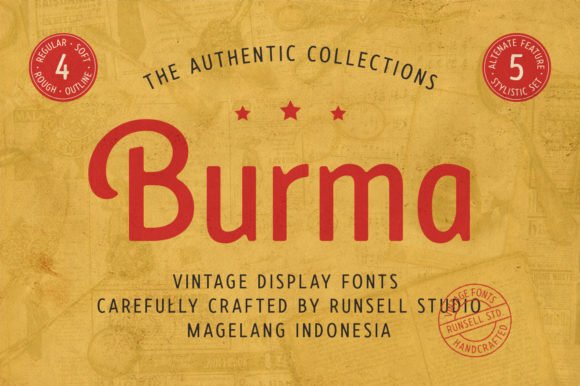
Bring a Touch of Exotic Elegance to Your Designs
Have you ever been brainstorming a new project, and suddenly a spark of creativity hits you? Maybe it’s a branding idea for a luxury travel company, or a logo for a high-end restaurant. Whatever it is, you know it needs something special to make it truly stand out. That’s where Burma Font comes in – an authentic and unique display font that adds a touch of exotic elegance to any design.
This beautiful font is perfect for designers looking to add a little extra flair to their work. Whether you’re creating a brochure for a boutique hotel or a website for a trendy fashion brand, Burma Font is the perfect choice. Its unique character and charm make it a valuable addition to any design project, and its versatility means it can be used in a wide range of contexts.
Burma Font Key Features
- Character Set: The font features a unique character set that includes Burmese, Latin, and other scripts, allowing for multilingual support and flexibility in design.
- Unique Characteristics: The font’s distinctive design and layout are inspired by traditional Burmese scripts, giving it a unique and authentic look that is perfect for cultural and linguistic applications.
Burma Font Review
When I first laid eyes on the Burma Font, I was immediately drawn to its unique, hand-drawn feel. ✨ The subtle imperfections and character variations give it a personal, human touch that’s perfect for creating a sense of authenticity and warmth in designs.
One of the standout features of Burma Font is its versatility. ✨ It’s suitable for a wide range of projects, from elegant wedding invitations to edgy street art posters. The font’s ability to adapt to different contexts and styles makes it a great addition to any designer’s toolkit.
While the Burma Font is a great choice for many projects, there are some limitations to consider. ⚠️ For one, the font’s unique character set can make it difficult to read at smaller font sizes. Additionally, the font’s ligatured characters can sometimes clash with other fonts, leading to uneven typography.
Overall, I’m a big fan of the Burma Font. Its unique personality and versatility make it a great choice for designers looking to add some flair to their projects. While it may not be suitable for every project, it’s definitely worth considering for those looking to create something truly unique and memorable.
Design Considerations
When working with the Burma Font, be sure to:
- Use it sparingly, as its unique character set can be overwhelming if overused.
- Pair it with complementary fonts to create a balanced typography.
- Test the font at different sizes to ensure readability.
Tips for Getting the Most Out of Burma Font
1. Experiment with different font sizes and styles to create visual interest.
2. Use Burma Font in combination with other fonts to create a unique and eye-catching design.
3. Consider using Burma Font in bold or italic styles to add emphasis to your text.
Common Use Cases for Burma Font
1. Create a vintage or retro-themed design.